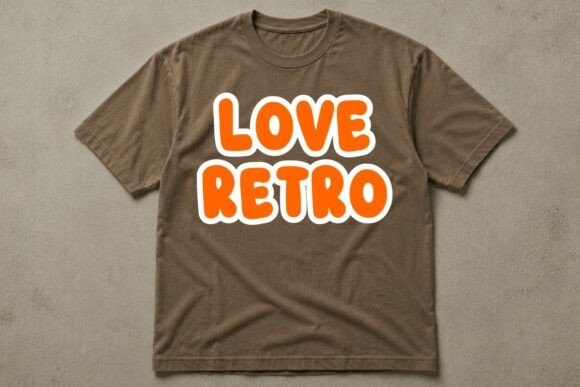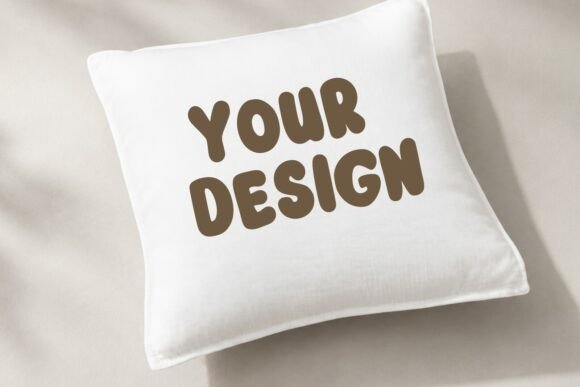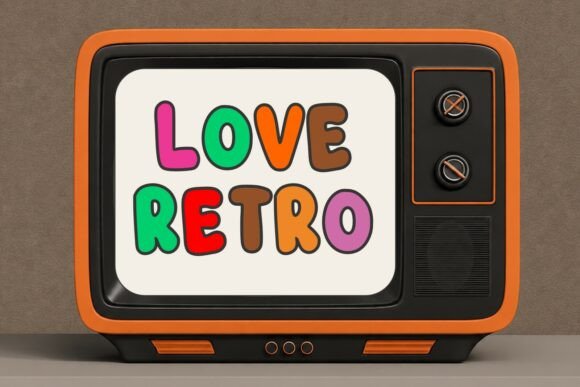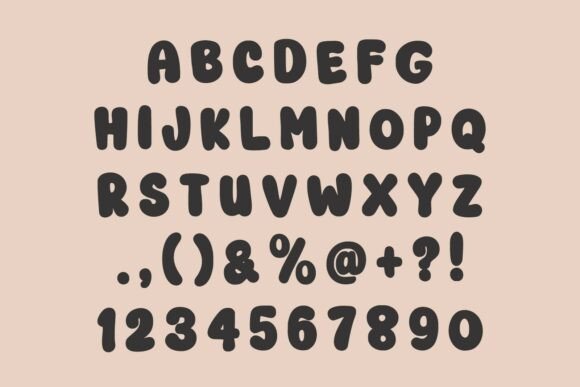
Groovy Retro Font: Add a Funky Touch to Your Designs
Are you looking for a font that can add a playful and nostalgic touch to your designs? Look no further than the Groovy Retro Font. Inspired by vintage typography and groovy design trends of the 1970s, this font is perfect for designers and crafters who want to create eye-catching and fun projects.
What is Groovy Retro Font?
Groovy Retro is a fun and playful retro 70s display font that features chunky rounded letterforms, bold outlines, and cheerful vibes. This font is designed to bring back the nostalgia of the 1970s, with its funky and colorful aesthetic. Whether you’re creating posters, branding materials, t-shirts, stickers, packaging, or social media graphics, Groovy Retro Font is the perfect choice.
Key Features of Groovy Retro Font
- Chunky Rounded Letterforms: The font features thick and rounded letterforms that give it a playful and fun feel.
- Bold Outlines: The bold outlines of the font make it stand out and add a touch of sophistication.
- Cheerful Vibes: The font exudes a cheerful and upbeat vibe that’s perfect for creating fun and engaging designs.
- Vintage Inspiration: The font is inspired by vintage typography and groovy design trends of the 1970s.
Uses of Groovy Retro Font
Groovy Retro Font is a versatile font that can be used for a variety of projects, including:
- Posters: Create eye-catching posters for events, concerts, or promotions.
- Branding: Use the font to create fun and playful branding materials, such as logos, business cards, and letterheads.
- T-Shirts: Design fun and quirky t-shirts with the Groovy Retro Font.
- Stickers: Create stickers with the font to add a touch of nostalgia to your designs.
- Packaging: Use the font to create colorful and eye-catching packaging for products.
- Social Media Graphics: Create engaging social media graphics with the font to grab the attention of your audience.
Why Choose Groovy Retro Font?
There are many reasons why you should choose Groovy Retro Font for your designs:
- Unique and Eye-Catching: The font is unique and eye-catching, making it perfect for designs that need to stand out.
- Fun and Playful: The font is fun and playful, making it perfect for designs that need to convey a cheerful and upbeat vibe.
- Nostalgic: The font is inspired by vintage typography and groovy design trends of the 1970s, making it perfect for designs that need a nostalgic touch.
- Versatile: The font is versatile and can be used for a variety of projects.
Tips for Using Groovy Retro Font
Here are some tips for using Groovy Retro Font:
- Use it for Headings: The font is perfect for headings and titles, so use it to add a touch of fun and playfulness to your designs.
- Experiment with Colors: The font looks great in bright and bold colors, so experiment with different color combinations to find the one that works best for your design.
- Pair it with Other Fonts: The font can be paired with other fonts to create a unique and interesting design.
Groovy Retro Font is a fun and playful retro 70s display font that’s perfect for designers and crafters who want to add a funky touch to their designs. With its chunky rounded letterforms, bold outlines, and cheerful vibes, this font is sure to make your designs stand out. Whether you’re creating posters, branding materials, t-shirts, stickers, packaging, or social media graphics, Groovy Retro Font is the perfect choice.